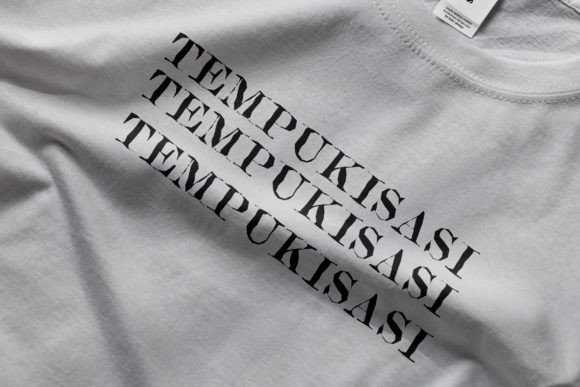
Looking to elevate your mobile design game? Look no further than the stunning Tempukisasi Font. This serif font, created by the talented Nickhard, is the epitome of elegance and class. With its sleek and minimalist serifs, combined with bold and striking letterforms, Tempukisasi is the go-to choice for designers looking to make a statement.
Why settle for ordinary when you can have extraordinary? Tempukisasi Font brings a touch of glamour and sophistication to any project. Whether you're working on luxury branding, editorial layouts, or high-end designs, this font is guaranteed to captivate your audience and leave a lasting impression.
Let's talk about the design elements that make Tempukisasi Font truly exceptional. The modern serifs give it a sleek and polished look, creating a sense of refinement and professionalism. The bold letterforms add an element of strength and confidence, making your message stand out with authority.
But Tempukisasi Font isn't just visually stunning; it also offers incredible versatility. Its unique style blends seamlessly with various design aesthetics, giving you the freedom to explore different creative directions. Whether you're going for a classic and timeless feel or a contemporary and edgy look, this font can adapt to your vision effortlessly.
Imagine the impact Tempukisasi Font can have on your mobile design projects. It has the power to transform an ordinary layout into an extraordinary masterpiece. Your website, app, or social media posts will instantly become eye-catching and visually appealing, drawing users in and keeping them engaged.
Don't settle for less when it comes to the fonts you use. Choose Tempukisasi Font and let its captivating charm elevate your designs to new heights. With its emotional appeal and creative flair, it's the perfect choice for designers who want to make a lasting impression.
In conclusion, the Tempukisasi Font is a must-have for anyone looking to create stunning mobile designs. Its modern and sophisticated design, combined with its versatility and captivating charm, sets it apart from the rest. So why wait? Download Tempukisasi Font today and unleash your creativity like never before.